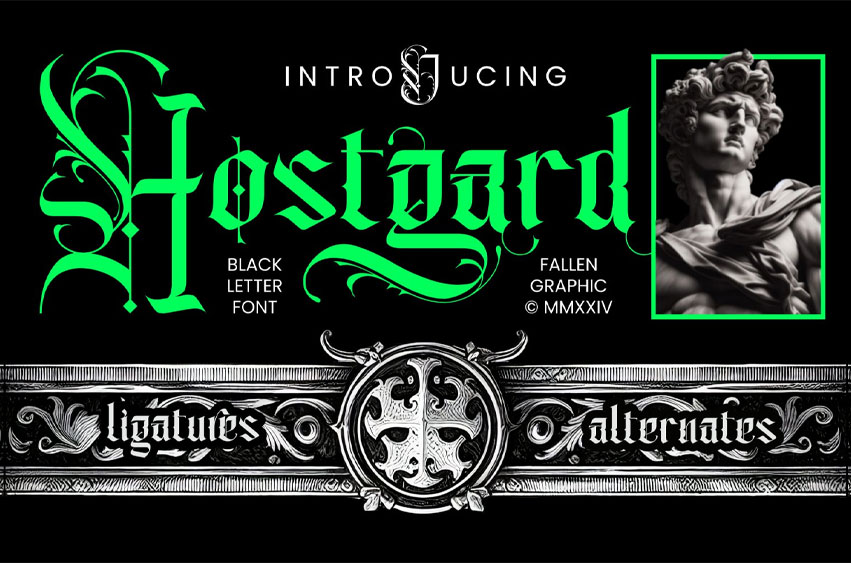
Hostgard Font
Hostgard Font is a Tattoo font is suitable for flyers, posters, novels, letterheads, or any design requirements that you want to be awesome.
It will certainly amaze your readers.